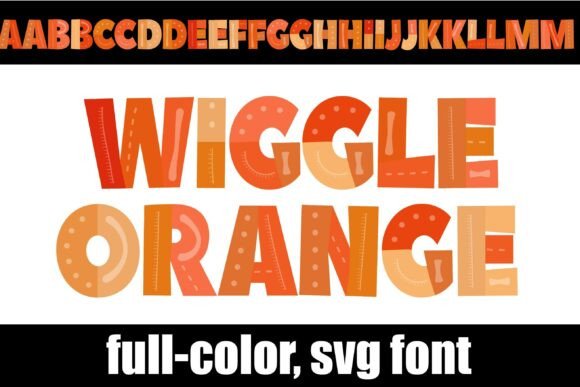
Wiggle Orange: Your Go-To Font for Handcrafted Charm
There’s a certain magic in things that feel made by hand. In a digital world, that touch of imperfection, of personality, stands out. This is exactly what Wiggle Orange brings to your projects. It’s not just a typeface; it’s a bundle of crafty energy, designed to look like it was stitched, patched, and assembled with care. If your work needs a dose of warmth, authenticity, and playful character, this is a font worth exploring.
More Than Just Letters: The Wiggle Orange Aesthetic
At first glance, Wiggle Orange is bold and cheerful. The letterforms have a distinct, gentle wobble to them, giving the impression of movement and life. But the real story is in the details. Each character is rendered in a warm spectrum of tangerine, apricot, and deep burnt orange, immediately evoking feelings of autumn, harvest festivals, and cozy afternoons.
What makes it a truly creative font is its layered construction. Look closer, and you’ll see intricate white dashed stitching outlines the letters, mimicking embroidery. Subtle geometric patterns and overlays add depth and texture, creating a tactile, almost three-dimensional feel. This isn’t a flat, sterile display font. It’s a premium font with the soul of folk art and patchwork quilting. It feels authentic, unpretentious, and full of character.
Where Does Wiggle Orange Truly Shine?
Understanding a font’s personality helps you deploy it effectively. Wiggle Orange isn’t for everything, and that’s its strength. It’s a specialist in conveying warmth, creativity, and a handcrafted ethos. Here’s where it becomes an invaluable design asset:
- Festive & Seasonal Marketing: Autumn festival flyers, harvest market posters, and Halloween event graphics are its natural habitat. Its warm palette and textured feel instantly communicate the season’s vibe.
- Children’s & Creative Publishing: Use it for book titles, chapter headings, or series branding in children’s literature. It injects a sense of wonder and playfulness that young readers (and parents) respond to.
- Craft & Artisan Branding: For small businesses selling handmade goods, artisan foods, or DIY kits, this font becomes a cornerstone of brand identity. It tells your story before a customer reads a word, signaling quality and care.
- Digital Presence with Personality: Social media headers, YouTube thumbnails, and blog graphics can all benefit from its standout appeal. It helps a content creator or blogger establish a distinct, recognizable visual style that cuts through the noise.
- Invitations & Personal Projects: Think birthday party invitations, scrapbook layouts, or personalized stationery. Wiggle Orange adds a heartfelt, custom touch that generic fonts simply can’t match.
Practical Guidance for Using This Typeface
Introducing a font as distinctive as Wiggle Orange into your toolkit requires a thoughtful approach. Here’s how to make the most of it without overwhelming your designs.
Pairing with Other Fonts
Balance is key. Because Wiggle Orange is textured and bold, pair it with something clean and simple. A classic serif font for body copy can add a touch of elegance and readability. A straightforward sans serif font offers a modern, clean contrast that lets Wiggle Orange headline without competition. Avoid pairing it with other highly decorative or handwritten fonts, as this can create visual clutter and confusion.
Ensuring Readability and Hierarchy
Use Wiggle Orange strategically. It’s perfect for headlines, logos, short quotes, and call-to-action buttons where you want maximum impact. For longer paragraphs or small print, switch to a more neutral, highly legible typeface. Its strength is in creating visual interest and establishing a mood, not in facilitating dense reading. Always test your designs at the intended size to ensure the details remain clear and the text is easy to parse.
Evaluating Project Fit and Licensing
Before committing, ask: Does my project’s tone align with warmth, creativity, and craft? Is the audience likely to appreciate this style? If you’re working on a corporate financial report or a minimalist tech startup’s website, it’s probably not the right fit. However, for a bakery, a pottery studio, a family-run farm, or a creative agency, it could be perfect.
Exploring Its Full Potential
Don’t just type and go. Experiment with the font’s color capabilities. While it comes in its signature orange tones, see how it interacts with different background colors. A deep navy or forest green can make it pop beautifully. Consider its application in packaging design—the textured, artisanal quality can make a product feel premium and thoughtfully made.
Ultimately, Wiggle Orange is more than just a font for branding; it’s a storytelling tool. It allows designers, marketers, and creators to inject a specific, tangible emotion into their work. By choosing it, you’re not just selecting a typeface—you’re making a deliberate choice to communicate with personality, warmth, and a touch of handmade magic. In a landscape of slick, impersonal modern typography, that’s a powerful way to connect.